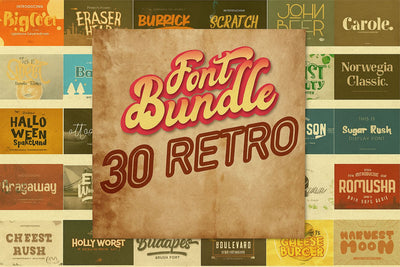
Introducing, 30 Retro Font Bundles- a standout bold script with a touch of vintage look and feel. This type of font perfectly made to be applied especially in logo, headline, signage and the other various formal forms such as invitations, labels, logos, magazines, books, greeting / wedding cards, packaging, fashion, make up, stationery, novels, labels or any type of advertising purpose.
- uppercase & lowercase
- numbers and punctuation
- alternates / swashes and ligatures
- SS01, SS01, SS03
- 30 font